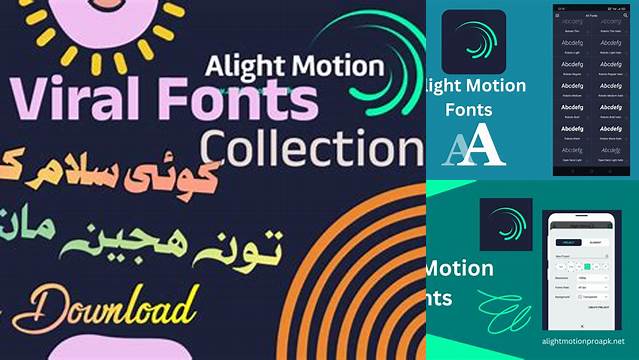
Alight Motion Fonts: Your Ultimate Guide
Hey everyone! If you're diving into the awesome world of video editing with Alight Motion, then you know that fonts are a total game-changer. They can seriously elevate your videos from basic to banging! This Alight Motion fonts tutorial is designed to get you up to speed on everything you need to know about using fonts in Alight Motion, from downloading and installing them to customizing them to perfection. We'll break down the process step-by-step, so even if you're a complete newbie, you'll be creating videos with killer typography in no time. So, grab your phones (or tablets!), and let's get started! We're going to dive deep into how to add those cool fonts, make them look amazing, and take your video editing skills to the next level. Think of your videos as a canvas and fonts as the paint – the right choices can make all the difference! I'm going to guide you through the whole process. Let's get this show on the road and make your videos look absolutely fantastic! Are you ready to dive in, learn how to use fonts in Alight Motion, and give your videos that special something? Let's get started and unleash your creativity!
Customizing Fonts in Alight Motion: Size, Color, and More
Once you've successfully installed your fonts, it's time to get creative and start customizing them! Alight Motion offers a range of tools to help you adjust your fonts to fit your video's style and theme. First, let's look at size. You can easily adjust the size of your text by using the size slider in the text settings. Drag the slider to increase or decrease the size until you achieve the desired effect. Think about the balance and readability of your text. You don't want it to be too small or too large. For color, select the color palette option in the text settings, and choose from a wide variety of colors. You can also adjust the opacity of your text to make it transparent or solid. Use this in combination with color grading to make the text more beautiful. Alight Motion provides you with tons of color options to make your text pop! Furthermore, explore the 'Edit Text' options. You can change the text, modify the font style, and adjust the alignment. Explore the different options to find what suits you best. Experiment with the font styles. Add some character, like bolding or italicizing your text. You can even add text outlines and shadows to create depth and visual interest. Outline the text to make it stand out. Add shadows for a professional look. Alight Motion is a great tool to help you with all of these options. Be patient and have fun. Keep playing around with different fonts and customization options to see what works best for your video. The more you experiment, the better you'll get at creating amazing typography that complements your video content. These customizations are your secret weapon to creating amazing videos!
Adding Animations and Effects to Your Fonts
Now, let's add some movement and pizzazz to your text! Animations and effects can take your typography from static to dynamic, making your videos more engaging and eye-catching. In Alight Motion, you can animate your text using keyframes. Select your text layer, go to the 'Effects' section, and choose the effects you want to apply. There are tons of effects to choose from, but some popular ones include fade-in, fade-out, and slide-in animations. Adjusting the timing of these animations is key. Experiment with different durations to find the best fit for your video. For example, you can make your text appear gradually with a fade-in effect or make it zoom in from a distance. These effects can make your text more engaging. You can also add more complex effects using keyframes. Keyframes allow you to control the position, scale, rotation, and other properties of your text over time. By creating a series of keyframes, you can create advanced animations that make your text dance across the screen. Experiment with different effects and combinations to see what looks best. Keep in mind the overall tone and style of your video. Use animation strategically to enhance your message without distracting the viewer. Practice with different text effects to see what makes your content stand out. There's a world of creative possibilities! Try experimenting with your animation effects to see what sticks with your video. These animation options will make your videos visually appealing!
Best Practices for Using Fonts in Alight Motion
Alright, let's talk about some best practices to ensure your typography looks professional and visually appealing. First, choose fonts that match your video's style and theme. If your video is fun and upbeat, you might choose a playful font. If it's more serious, consider a clean and professional font. Limit the number of fonts you use in a single video. Using too many fonts can create a messy and confusing look. Stick to a maximum of two or three fonts to maintain visual consistency. Ensure readability. Always make sure your text is easy to read. Choose fonts that are clear and legible, and consider the background you're placing your text on. Consider the contrast between the text and the background. Make sure the text stands out! White text on a dark background usually works well, and vice versa. Use text hierarchy to guide the viewer's eye. Use different font sizes, weights, and styles to indicate the importance of different elements. This helps to establish a clear visual structure. Keep an eye on the overall design. Don't be afraid to experiment and play around with different font combinations and customizations. Experiment with kerning, leading, and tracking. Fine-tune the spacing between your text to enhance readability and visual appeal. These practices ensure your text looks professional and enhances your overall video. Also, make sure your text doesn’t overlap with other elements. Make sure there’s enough space. By following these best practices, you can create stunning typography that takes your videos to the next level!
Font Pairing and Combining Techniques
One of the keys to beautiful typography is selecting fonts that work well together. Think of it like choosing outfits; you want your fonts to complement each other! Here's how to find great font pairings. Start by exploring different font styles. Some fonts are best used for headlines or titles, while others are better for body text. Once you've chosen a headline font, look for a font that complements it in terms of style and visual weight. You can create harmony by using two fonts that share the same style. Mix and match fonts with different styles. You can mix a bold, sans-serif font with a classic serif font for a visually appealing contrast. Experiment with fonts from different families. Use font pairing tools to help you find perfect combinations. These tools suggest fonts based on style and characteristics. Look at how the font is balanced, and don’t go for too many different styles in your video. Keep it simple and consistent for the best results. You don't want to make your video look confusing. Consider the message and tone of your video. Select font pairings that reflect the mood and the content of your video. You can look for a combination of a classic font and a modern one. Consider using one font for your headlines and a different font for the body text. Make your texts consistent and beautiful. The right font pairing is critical to making your video great. Good font pairings will enhance the overall visual appeal of your videos.
Finding Free Fonts Online: Websites and Resources
So, where can you get your hands on these amazing fonts without breaking the bank? There are a ton of websites offering free fonts. Some of my favorites are DaFont, 1001 Fonts, Google Fonts, and Font Squirrel. These sites have a vast collection of free fonts you can download and use in your projects. When browsing for free fonts, be sure to check the license. Many free fonts are available for personal use, but some require a commercial license if you're using them for profit. Carefully read the licensing terms. The license will inform you of any restrictions. Many sites offer previews of the fonts, so you can see how they will look before you download them. This is super helpful! Look for fonts with different weights and styles. You will want a wide range of options when customizing your text. Use filters to narrow down your search. Most font websites let you filter by style, size, and license. This will save you a lot of time. Some websites offer curated collections or font pairings. Explore these to get some inspiration. By exploring these resources and being mindful of the licensing terms, you can build a great font collection without spending a dime. Be sure to check regularly to discover new and interesting fonts. Take advantage of these free resources. Have fun exploring the world of free fonts! This will save you money and help you create awesome content. You are sure to find a lot of fonts to use in your videos!
Legal Considerations: Free Font Licensing and Usage
When it comes to free fonts, understanding the legal side is crucial to ensure you're using them correctly. Always check the license before you use a free font. The license outlines how you're allowed to use the font. Most free fonts fall under one of several licensing types. The most common is the SIL Open Font License (OFL). The OFL allows you to use, modify, and redistribute the font for both commercial and personal use, but you must include the font's license with your work. There is also Creative Commons (CC) licenses. CC licenses can vary. Make sure you know exactly what your allowed permissions are. Some fonts have a Personal Use Only license. This means you can only use the font for non-commercial projects. If you plan to use the font in a project that generates revenue, you'll need to obtain a commercial license. Be aware of font modifications. In general, you can modify a font, but you must adhere to the terms of the license. Always give credit to the font creator. Always try to provide credit, especially if required by the license. By understanding these legal considerations, you can use free fonts responsibly. Always be mindful of the license requirements. If in doubt, consult with a legal professional or the font creator. Taking the time to understand licenses helps you avoid any legal issues. Respecting the creators and licensing terms builds a healthy creative community. Remember, responsible usage is a sign of respect and helps support the creators who have provided these fonts for free!
Final Thoughts and Creative Inspiration for Your Videos
So, you've learned how to download, install, and customize fonts in Alight Motion. You've learned about animations, effects, and best practices. Now, it's time to put your newfound knowledge to work and get creative! Think about the themes you want to use. Try creating cool intros. Focus on what you enjoy doing. Don’t be afraid to think outside the box! Use fonts to amplify your video. Experiment and enjoy the process. Remember, creativity is a muscle. The more you practice, the better you'll get. Be open to trying new things. The key is to keep experimenting and discovering what works best for you. Take inspiration from other creators. Use their videos as a source of inspiration. Learn from others and explore your creativity. The goal is to inspire you! Be creative and have fun! There are many techniques, so be sure to keep learning! Now, go create some amazing videos and show the world what you've got! This is your time to shine! Create great videos with fonts! Take pride in your work! Be proud! And go create some amazing videos!